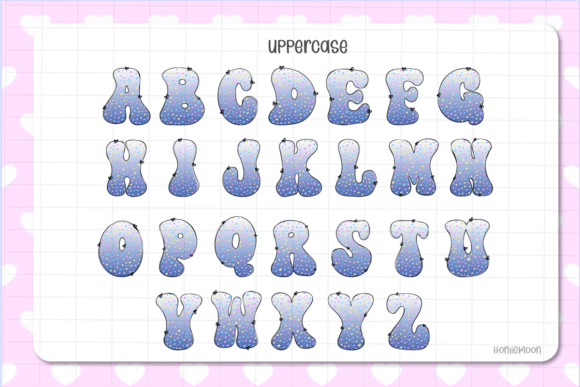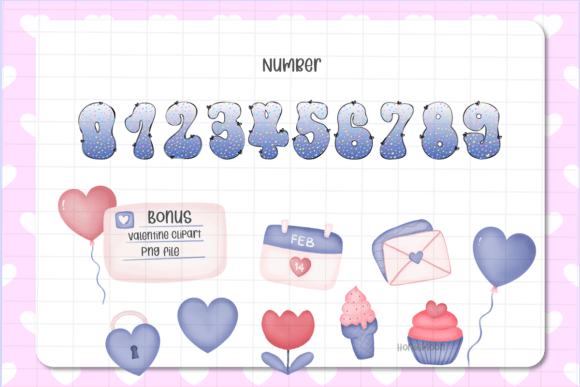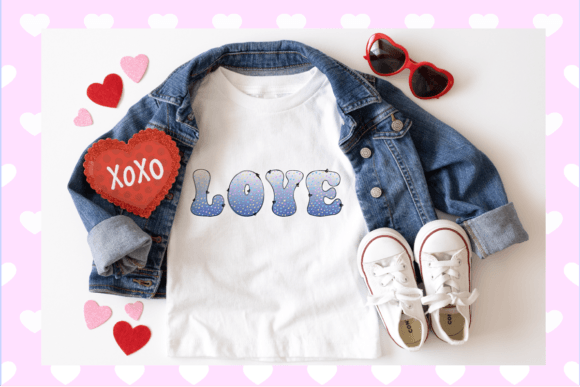
Introducing Heart Font: The Perfect Choice for Playful Designs
Are you looking for a font that embodies playfulness and authenticity? Look no further than Heart Font, a cute and colorful display font that’s perfect for children’s activities, school projects, and more. With its chunky lettered design, Heart Font is sure to make your designs come alive!
What is Heart Font?
Heart Font is a unique and eye-catching display font that’s designed to add a touch of playfulness to your designs. Its bold and chunky lettering makes it perfect for use in children’s books, educational materials, and school projects. The font’s colorful and lively design is sure to capture the attention of kids and adults alike, making it an excellent choice for anyone looking to add some fun and personality to their designs.
Characteristics of Heart Font
So, what makes Heart Font so special? Here are just a few of its key characteristics:
• Playful design: Heart Font has a fun and playful design that’s perfect for kids and adults who love to have fun.
• Chunky lettering: The font’s bold and chunky lettering makes it easy to read and adds a touch of personality to your designs.
• Colorful: Heart Font is available in a range of colors, making it easy to match your brand or design style.
• Authentic: The font’s unique design makes it feel authentic and genuine, perfect for designers who want to add a personal touch to their work.
Uses for Heart Font
So, what can you use Heart Font for? The possibilities are endless! Here are a few ideas to get you started:
• Children’s books and activities: Heart Font is perfect for use in children’s books, activity sheets, and educational materials.
• School projects: The font’s playful design makes it an excellent choice for school projects, presentations, and posters.
• Crafting and DIY projects: Heart Font is a great choice for crafters and DIY enthusiasts who want to add a personal touch to their projects.
• Party decorations and invitations: The font’s colorful and playful design makes it perfect for use in party decorations, invitations, and other celebratory materials.
Tips for Using Heart Font
Here are a few tips for getting the most out of Heart Font:
• Use it sparingly: While Heart Font is a fun and playful font, it can be overwhelming if used too much. Use it sparingly to add a touch of personality to your designs.
• Experiment with colors: Heart Font is available in a range of colors, so don’t be afraid to experiment and find the perfect color for your design.
• Pair it with other fonts: Heart Font pairs well with other fonts, so try pairing it with a more traditional font to create a fun and playful contrast.
In conclusion, Heart Font is a unique and eye-catching display font that’s perfect for designers and crafters who want to add a touch of playfulness and authenticity to their work. With its chunky lettered design and range of colors, Heart Font is sure to make your designs come alive! So why not give it a try and see the difference it can make?
Get Ready to Fall in Love with Heart Font
Heart Font is a font that will capture your heart with its cute and colorful design. Whether you’re a designer, crafter, or DIY enthusiast, Heart Font is the perfect choice for anyone looking to add a touch of playfulness and personality to their work. So why wait? Download Heart Font today and start creating!